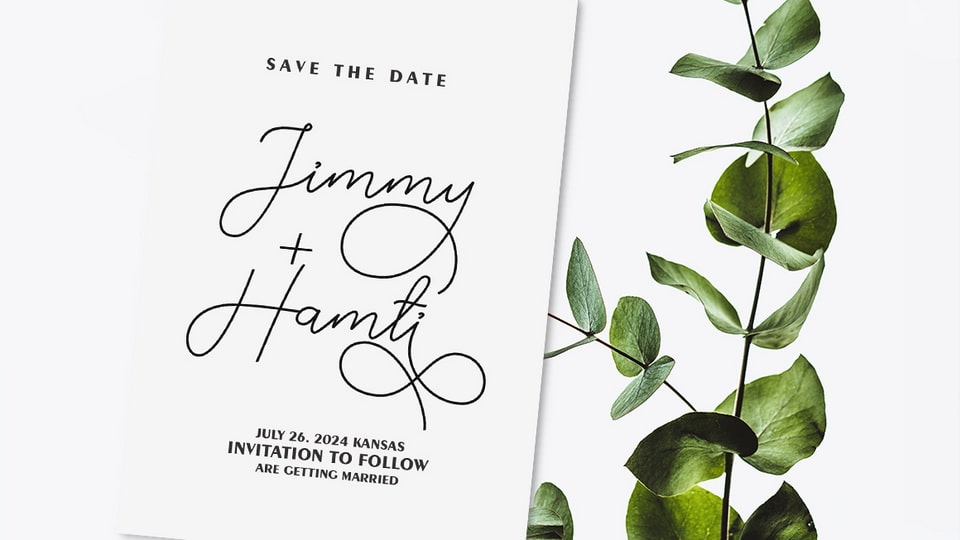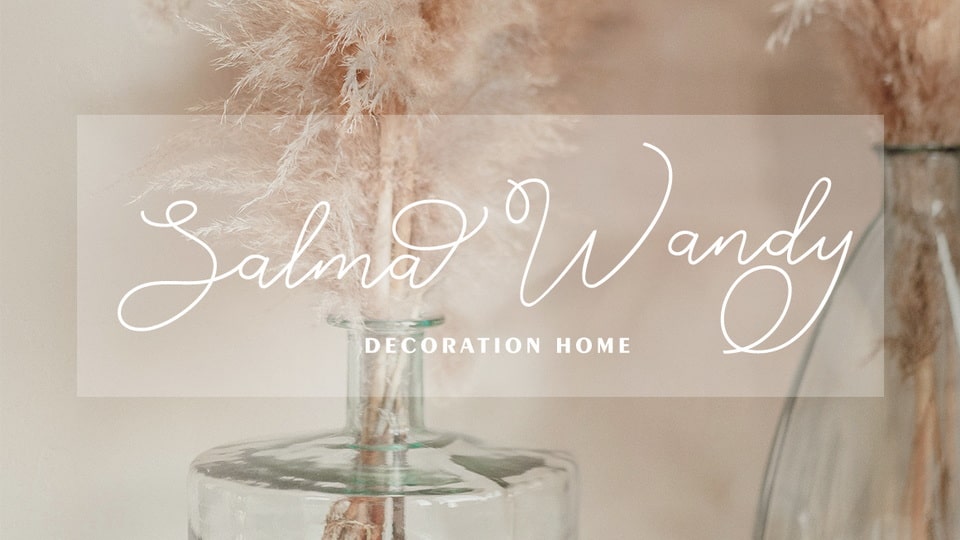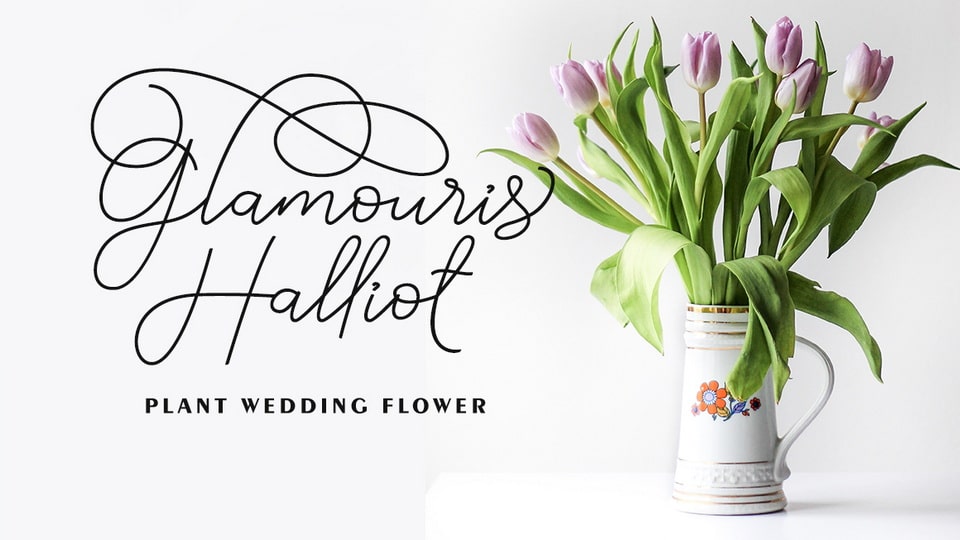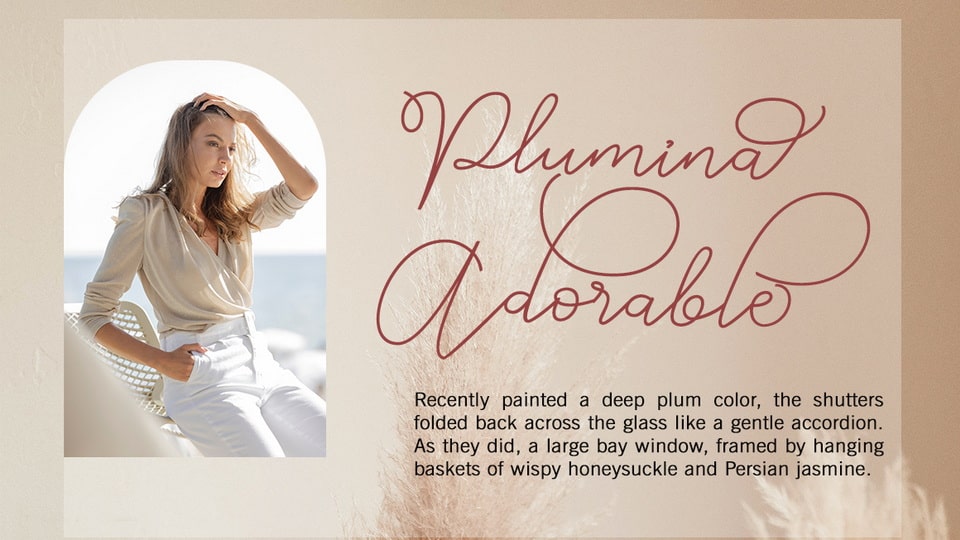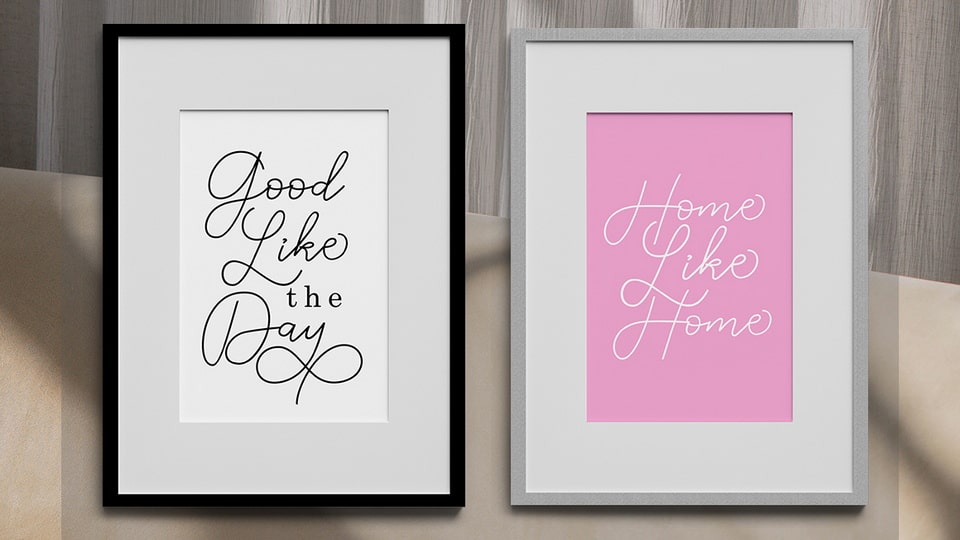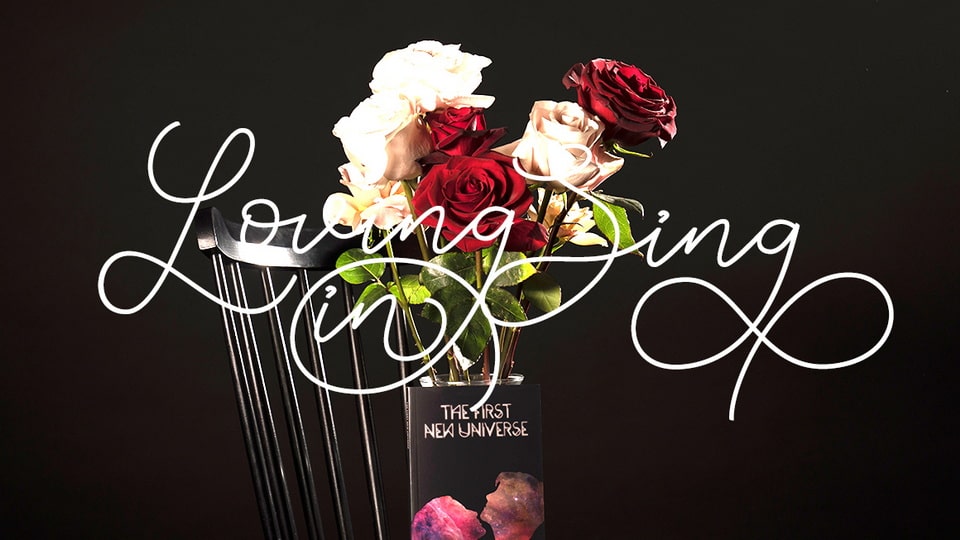
Hambut is a handwritten font that includes lots of cute dingbats to decorate your quotes, social media posts, greeting cards, etc. Make a combination of uppercase sans and lowercase scripts and design beautiful projects!